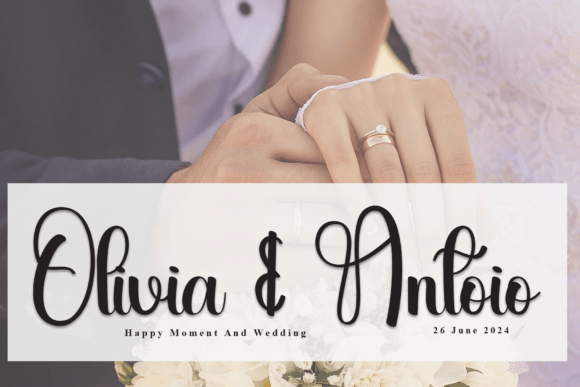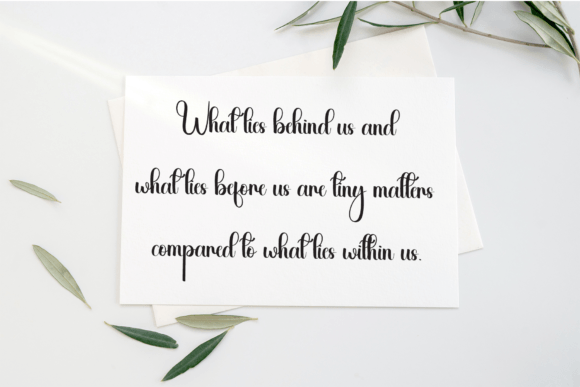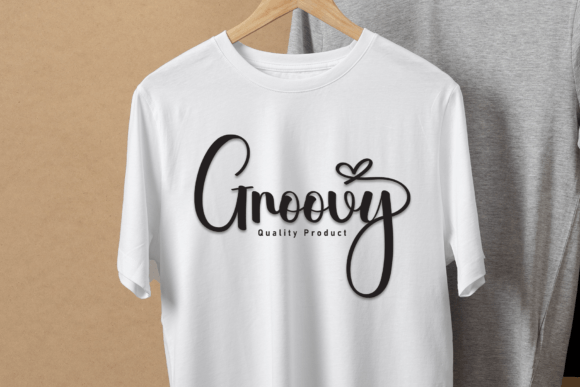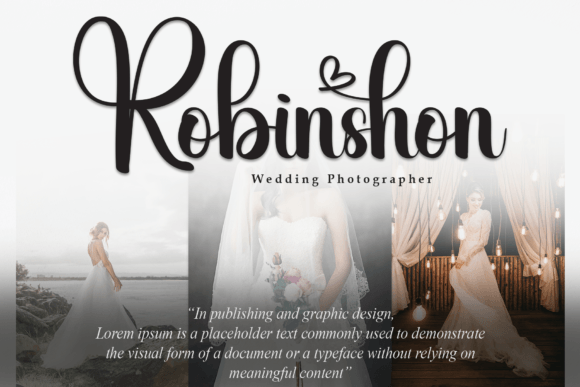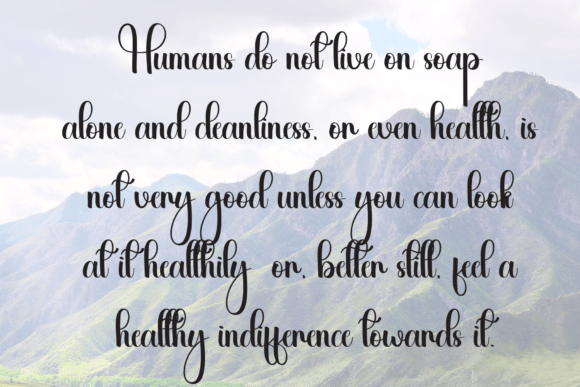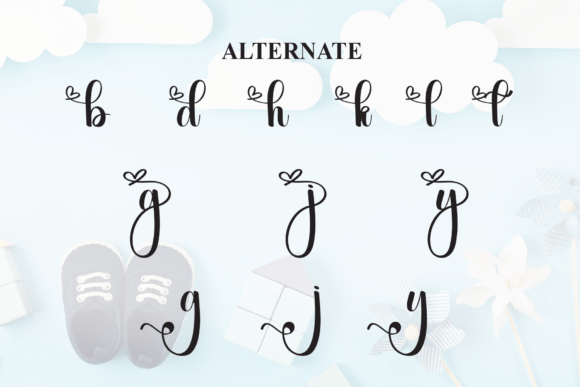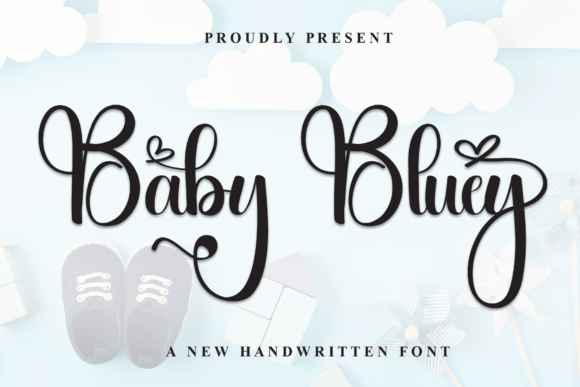
Baby Bluey Font: Elevate Your Designs with Elegance and Sophistication
Baby Bluey is a stylish and incredibly elegant script font that has been making waves in the design world. Its unique and beautiful handwritten touch makes it perfect for a wide range of design projects, from wedding invitations and thank you cards to quotes, greeting cards, logos, and business cards. In this article, we’ll dive into the world of Baby Bluey Font, exploring its features, uses, and benefits for designers and crafters.
What is Baby Bluey Font?
Baby Bluey Font is a script font that boasts a distinctive and elegant handwritten style. Its smooth, flowing lines and delicate strokes evoke a sense of sophistication and refinement, making it an ideal choice for designs that require a touch of luxury and glamour. The font’s unique character set and beautiful swashes make it perfect for creating stunning text-based designs that are sure to impress.
Key Features of Baby Bluey Font
- Elegant Script Style: Baby Bluey Font features a beautiful, cursive script style that adds a touch of elegance and sophistication to any design.
- Handwritten Touch: The font’s handwritten touch makes it perfect for designs that require a personal and unique feel.
- Beautiful Swashes: Baby Bluey Font comes with beautiful swashes that can be used to add a decorative touch to your designs.
- High-Quality Design: The font is designed with high-quality craftsmanship, ensuring that it looks stunning in any design.
Uses of Baby Bluey Font
Baby Bluey Font is a versatile font that can be used in a wide range of design projects, including:
- Wedding Invitations: The font’s elegant and sophisticated style makes it perfect for wedding invitations, adding a touch of luxury and glamour to your wedding stationery.
- Thank You Cards: Baby Bluey Font is ideal for creating beautiful thank you cards that are sure to impress your friends and family.
- Quotes and Greeting Cards: The font’s unique and beautiful style makes it perfect for creating stunning quotes and greeting cards that are sure to stand out.
- Logos and Business Cards: Baby Bluey Font can be used to create elegant and sophisticated logos and business cards that reflect your brand’s personality.
Benefits of Using Baby Bluey Font
Using Baby Bluey Font in your designs comes with a range of benefits, including:
- Unique and Elegant Style: The font’s unique and elegant style sets it apart from other fonts, making your designs stand out from the crowd.
- High-Quality Design: Baby Bluey Font is designed with high-quality craftsmanship, ensuring that it looks stunning in any design.
- Versatile: Baby Bluey Font can be used in a wide range of design projects, making it a great addition to your font library.
Tips for Using Baby Bluey Font
Here are some tips for using Baby Bluey Font in your designs:
- Use it Sparingly: Baby Bluey Font is a elegant and sophisticated font, so use it sparingly to avoid overwhelming your design.
- Pair it with Other Fonts: The font pairs well with other fonts, so experiment with different combinations to find the perfect look for your design.
- Experiment with Swashes: The font’s beautiful swashes can add a decorative touch to your design, so experiment with different swash styles to find the perfect look.
Baby Bluey Font is a stylish and incredibly elegant script font that is perfect for designers and crafters looking to add a touch of luxury and glamour to their designs. Its unique and beautiful handwritten touch makes it perfect for a wide range of design projects, from wedding invitations and thank you cards to quotes, greeting cards, logos, and business cards. With its high-quality design, elegant style, and versatility, Baby Bluey Font is a great addition to any font library.